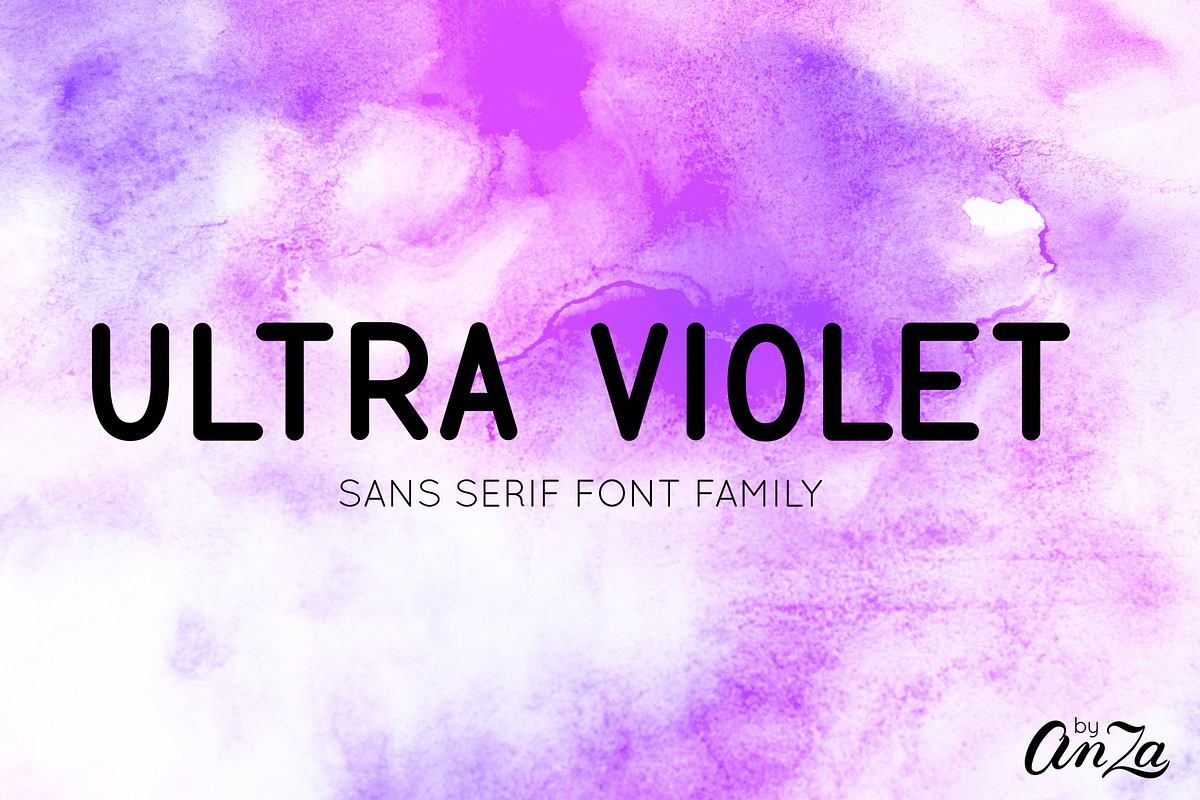
Add bold elegance to your designs with ULTRA VIOLET Sans Serif Font Family Free Download — a clean, modern typeface family that combines sleek lines with contemporary simplicity. Perfect for branding, web design, corporate identities, editorial layouts, and any project that requires professional, high-impact typography.
With multiple weights and styles, the ULTRA VIOLET Sans Serif Font Family offers ultimate versatility, making it easy to create eye-catching headlines, body text, and logos. Its strong geometric forms and sharp lines make it a perfect choice for designers who seek clarity and sophistication.
The family includes uppercase and lowercase letters, punctuation, numerals, and multilingual support — offering complete flexibility across various platforms and projects.